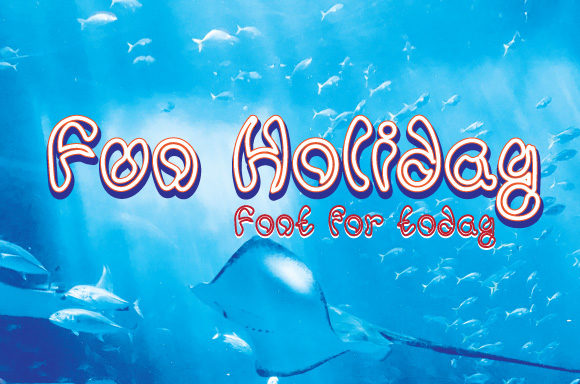
Introducing Fun Holiday, the display font that will ignite your creativity and add a touch of festive cheer to your designs! Crafted by the renowned Ailil Design Studio, this playful and bubbly font is designed to make your words dance off the page.
Fun Holiday is more than just a font; it's a gateway to a world of endless design possibilities. Picture your letterheads adorned with its charming curves, adding a touch of whimsy to your professional correspondence. Create eye-catching titles that demand attention and leave a lasting impression. Transform your stationery into a canvas for creativity, where every note and message becomes a work of art.
But Fun Holiday's versatility extends far beyond traditional design applications. Its playful nature makes it perfect for crafting unique and memorable posters that will capture the hearts of your audience. The bold and bouncy characters will add a spark of joy to any display, ensuring that your messages stand out from the crowd.
Imagine your designs bursting with personality, exuding a cheerful and inviting aura. Fun Holiday is the font that will bring a smile to the faces of your readers and create a lasting connection with your brand.
Don't settle for ordinary fonts that blend into the background. Embrace the extraordinary with Fun Holiday and unleash your creativity like never before. Let your designs shine with the vibrant energy of this playful and bubbly display font.